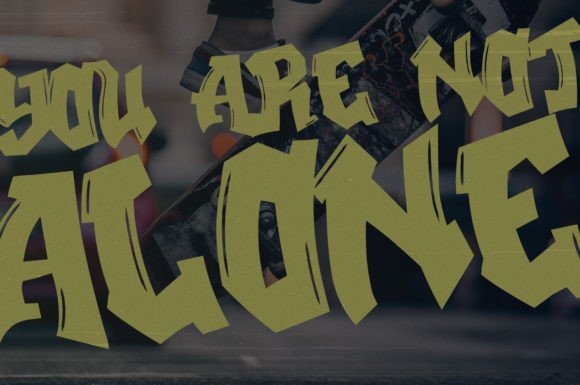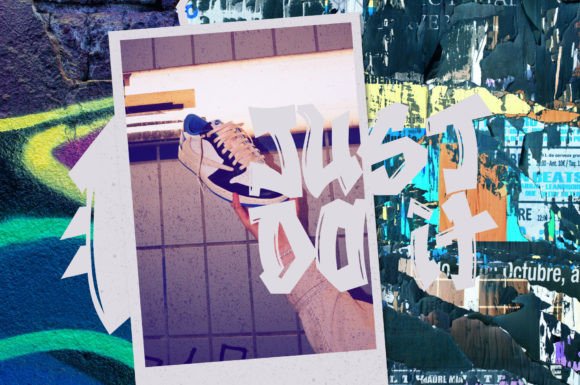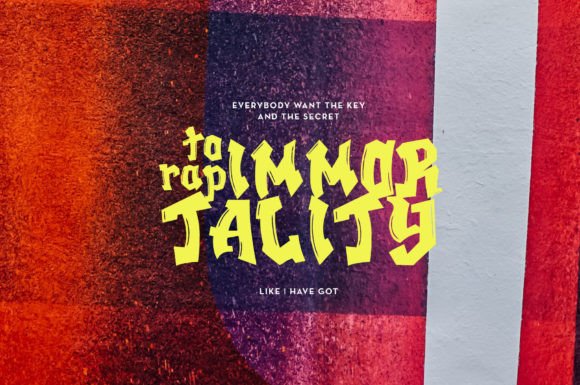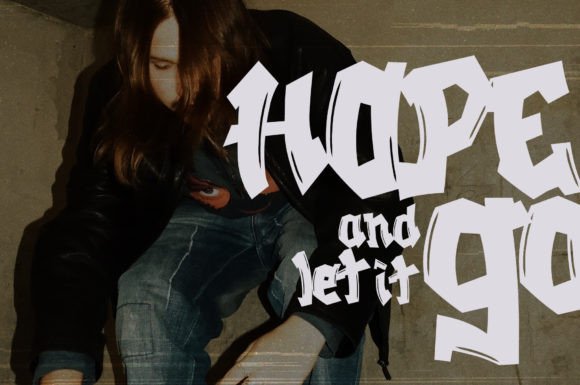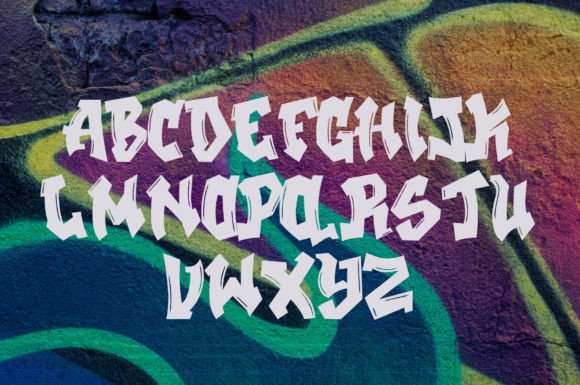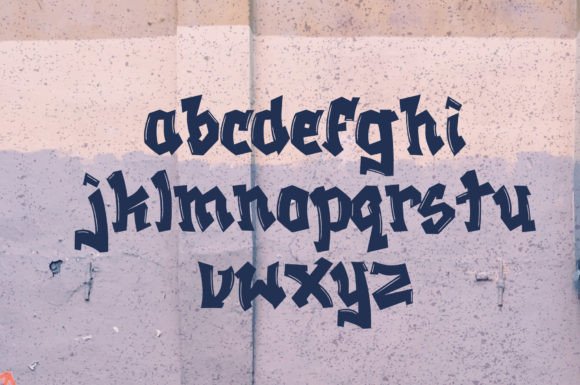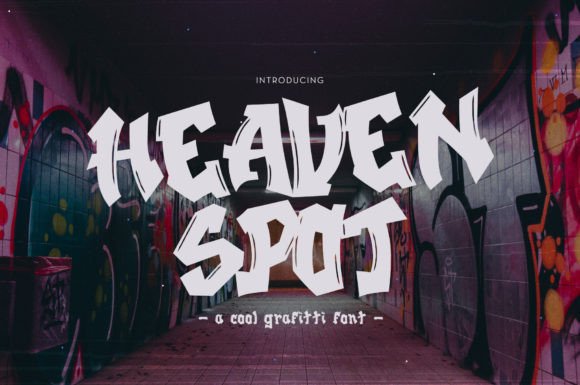
Introducing Heaven Spot Font: The Ultimate Graffiti Typeface for Creatives
Are you a designer, artist, or crafter looking for a unique and versatile font to elevate your creative projects? Look no further than Heaven Spot Font, a modern graffiti typeface inspired by the vibrant world of street art and underground hip-hop music. This marker-like font is not only beautiful but also legible, making it perfect for a wide range of applications.
The Inspiration Behind Heaven Spot Font
Heaven Spot Font draws its inspiration from the raw energy and edginess of street art and hip-hop culture. The font’s design is reminiscent of graffiti tags and murals found in urban landscapes, giving it a fresh and contemporary feel. The creators of Heaven Spot Font aimed to capture the essence of this art form and make it accessible to designers and crafters worldwide.
Key Features of Heaven Spot Font
- Marker-like style: Heaven Spot Font has a distinctive marker-like style that gives it a bold and expressive look.
- Legibility: Despite its graffiti-inspired design, Heaven Spot Font is highly legible, making it suitable for use in a variety of contexts.
- Versatility: This font can be used for both digital and print projects, including wall art, headlines, album covers, social media posts, logos, posters, packaging, and more.
- Modern and fresh: Heaven Spot Font has a modern and fresh feel that will add a unique touch to your creative projects.
Use Cases for Heaven Spot Font
Heaven Spot Font is an incredibly versatile typeface that can be used in a wide range of applications. Here are some ideas to get you started:
- Wall art: Create stunning wall art pieces that showcase your creativity and style.
- Headlines and titles: Use Heaven Spot Font to add a bold and eye-catching touch to your headlines and titles.
- Album covers: Give your music projects a professional and stylish look with Heaven Spot Font.
- Social media posts: Stand out on social media with eye-catching posts and graphics created with Heaven Spot Font.
- Logos and branding: Use Heaven Spot Font to create unique and memorable logos and branding materials.
- Posters and flyers: Create attention-grabbing posters and flyers that showcase your message and style.
- Packaging: Add a creative touch to your product packaging with Heaven Spot Font.
Tips for Getting the Most Out of Heaven Spot Font
To get the most out of Heaven Spot Font, here are some tips to keep in mind:
- Experiment with colors: Heaven Spot Font looks great in a variety of colors, so don’t be afraid to experiment and find the perfect hue for your project.
- Play with sizes: This font looks great in both large and small sizes, so try it out in different contexts to see what works best.
- Combine with other fonts: Heaven Spot Font pairs well with other fonts, so try combining it with different typefaces to create a unique look.
- Use it for emphasis: Use Heaven Spot Font to add emphasis to key words or phrases in your design.
Heaven Spot Font is a powerful and versatile typeface that is perfect for designers, artists, and crafters looking to add a unique touch to their creative projects. With its modern graffiti-inspired design, legibility, and versatility, Heaven Spot Font is sure to become a go-to font in your collection. So why wait? Get creative today with Heaven Spot Font and take your designs to the next level!